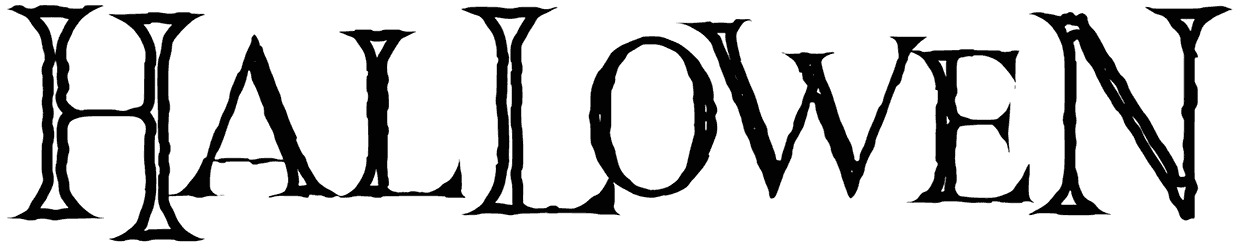
Hallowen Font
That’s where horror reflection can be tricky in grabbing the eye toward your outcome, whether Halloween flyers, movie titles, or posters. Serif with handwritten effects combines to give you this Halloween font to add dreadful and mysterious vibes.
Although Hallowen is available in all caps, it puts every possible effort to pull ahead of others soon. Thanks to the library of RB, it’s a breeze to deal with many other horror fonts. Hit download to knock down all chilling sounds to yourself!